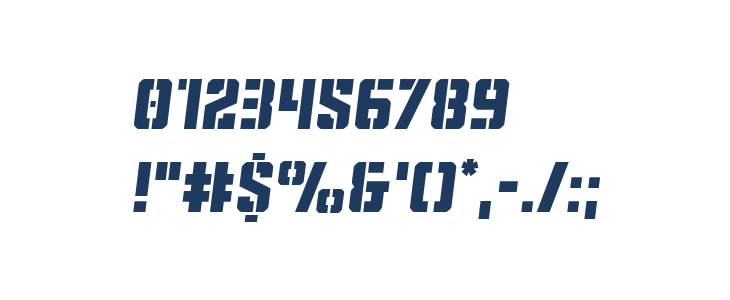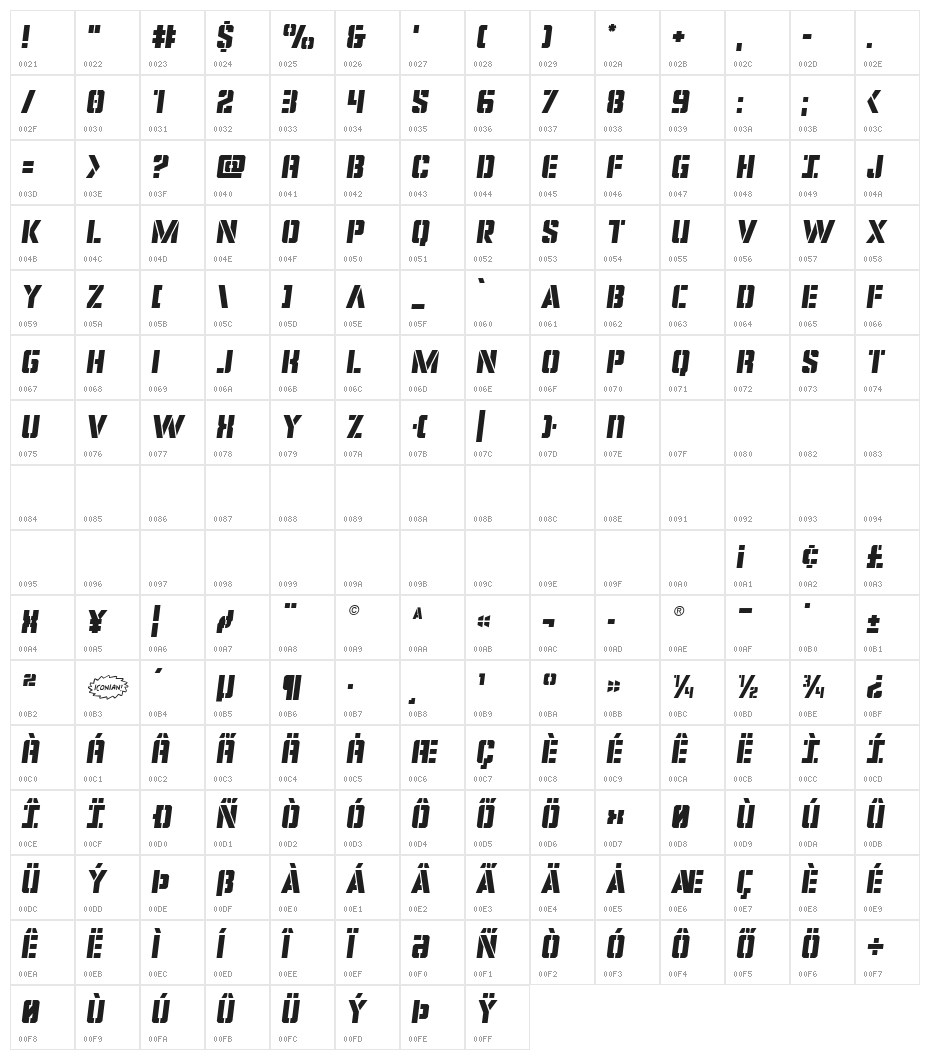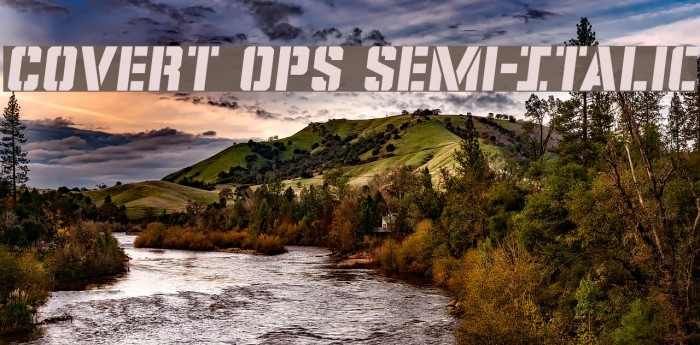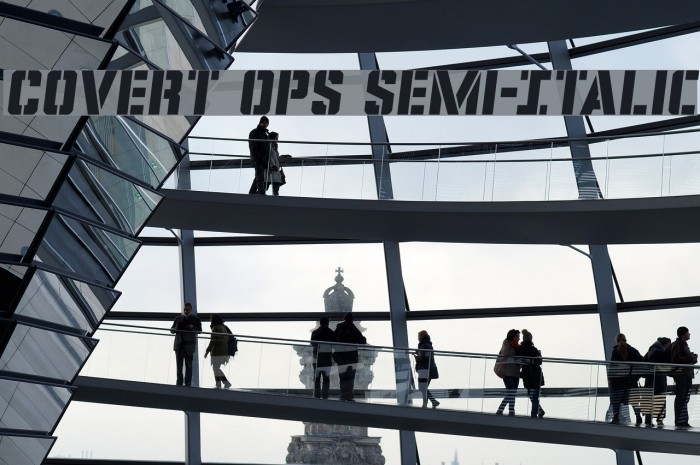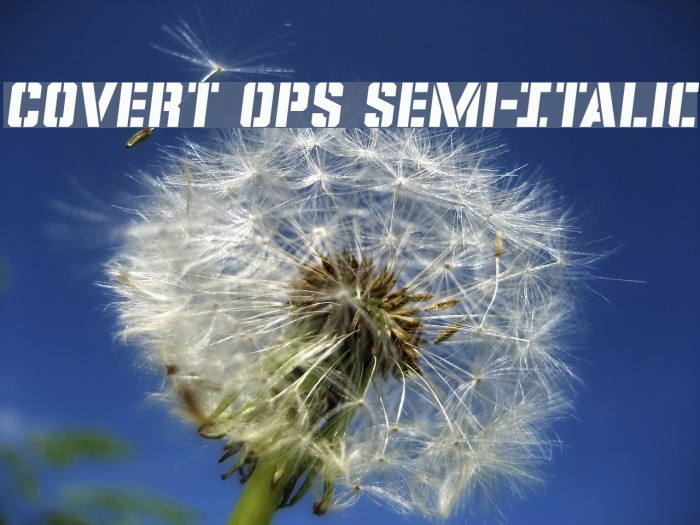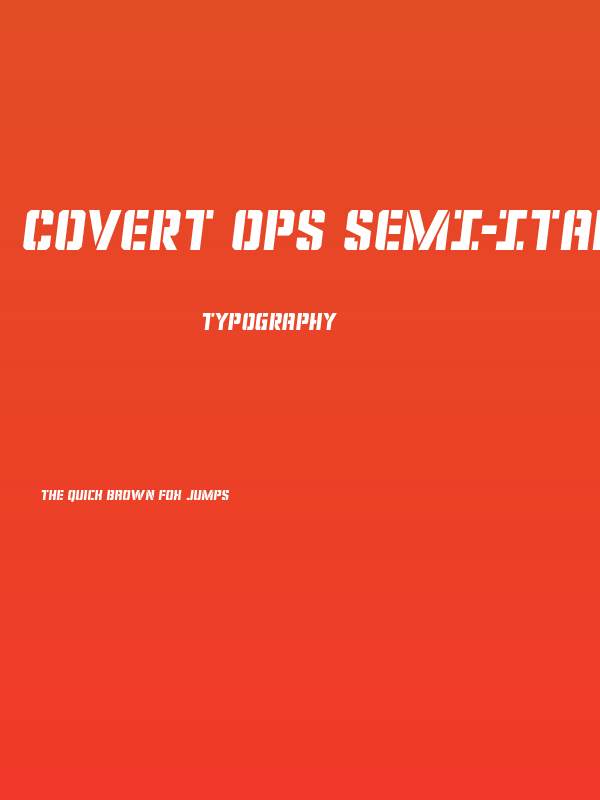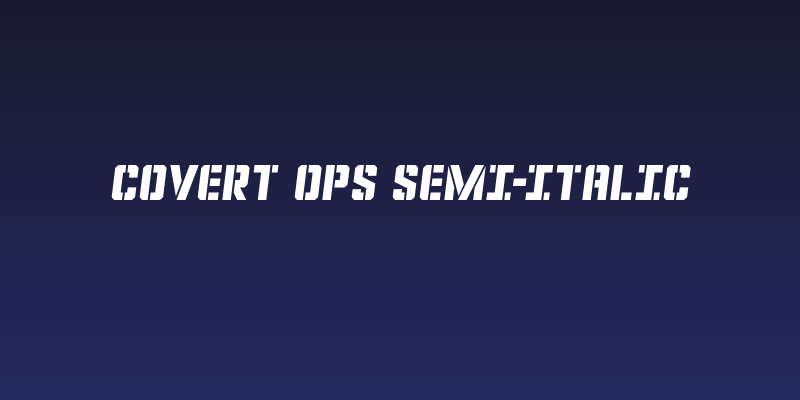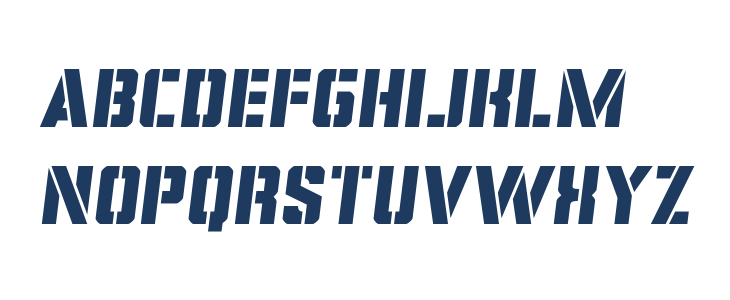
Covert Ops Semi-Italic Font
Covert Ops Semi-Italic Description
This font features a bold, angular design with a semi-italic slant, giving it a dynamic and forward-moving appearance. The characters are constructed with sharp, geometric shapes that convey a sense of strength and modernity. The uppercase and lowercase letters maintain a consistent style, with the uppercase being slightly more pronounced. Numbers and special characters follow the same bold and angular design, ensuring uniformity across all elements. The font's distinct style makes it suitable for attention-grabbing headlines and impactful designs.
Proposed ProjectsIdeal for use in branding, posters, sports team logos, and any project requiring a strong, modern aesthetic.